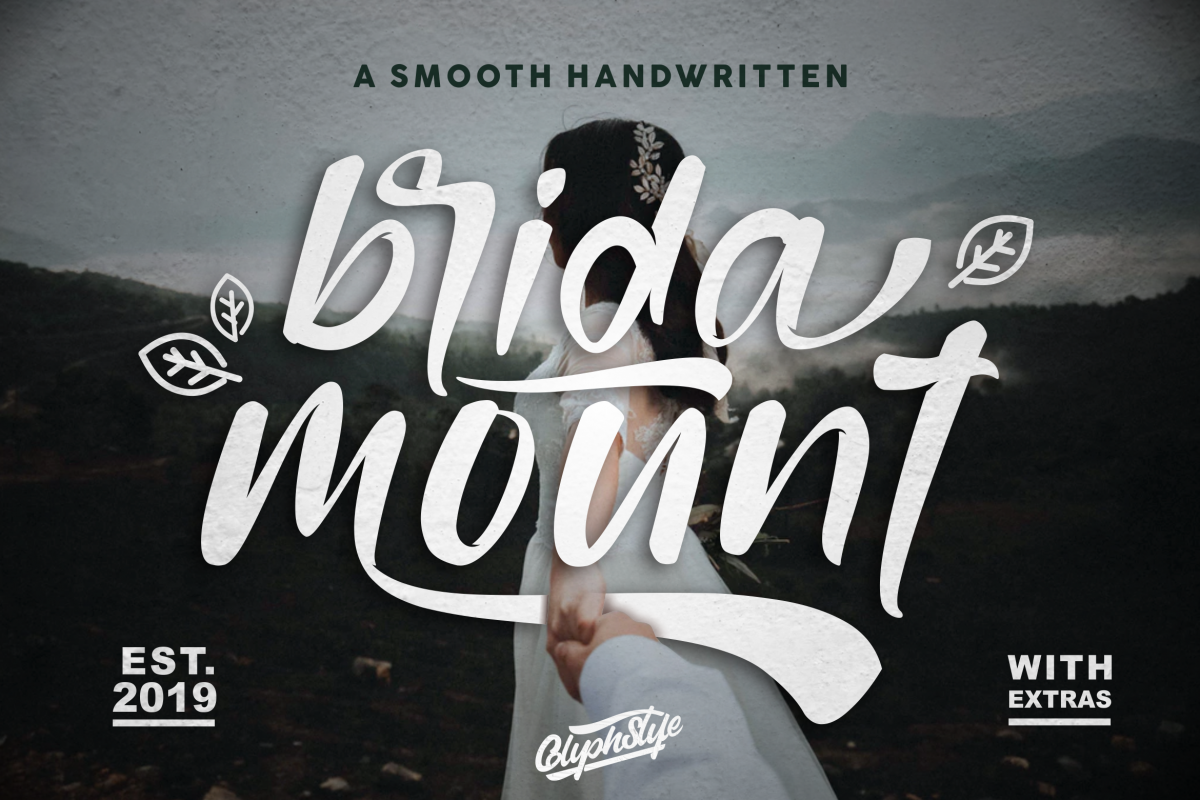
bridamount - a Smooth Handwritten font with extras
bridamount is smooth handwriting. bridamount with smooth and detailed curves. bridamount is perfect for adventure-themed projects. This font can be used for branding and logos, wedding designs, social media posts, advertisements, business cards, clothing products, quotes, magazine covers, labels, photography, watermarks, invitations, stationery, and any project that requires handwriting tastes smooth one.
You also get an additional icon for adventure design
-Features of fonts
• Lowercase,
• Uppercase,
• Numbers & Punctuation,
• Lowercase alternatives,
• swash variant
• ligature
• extras(icon)